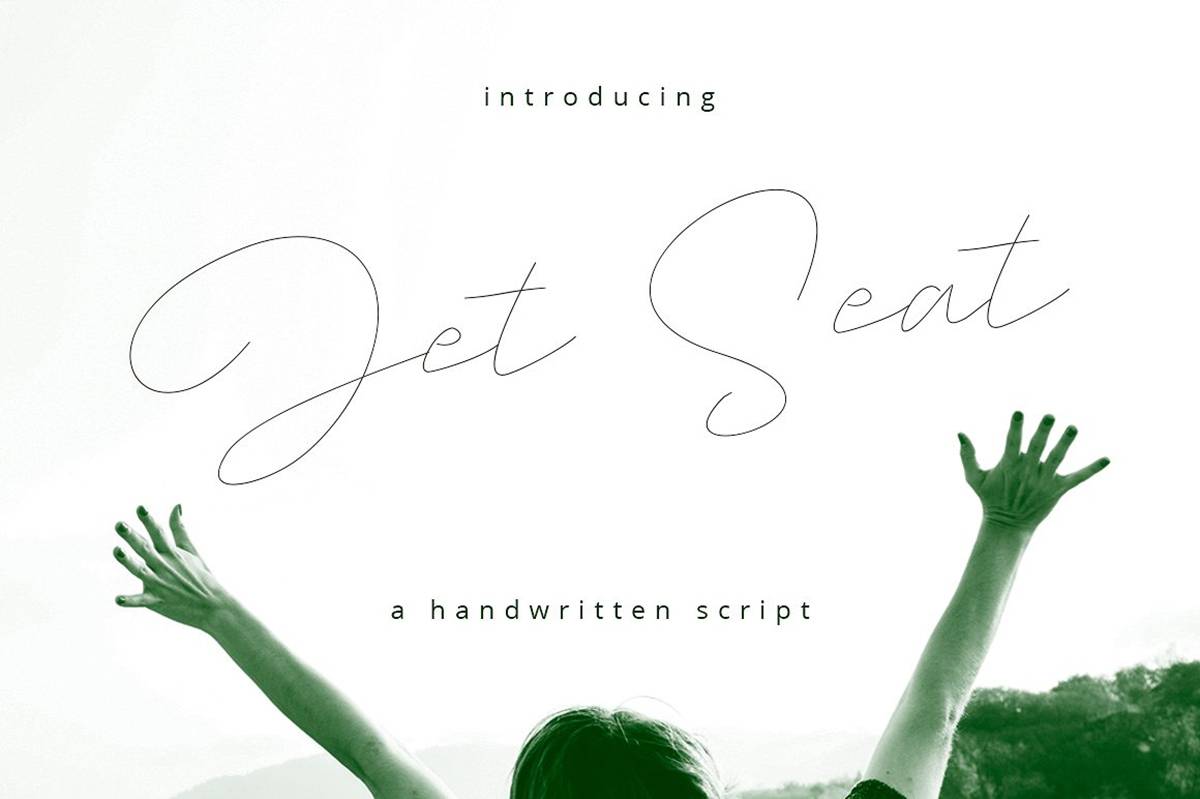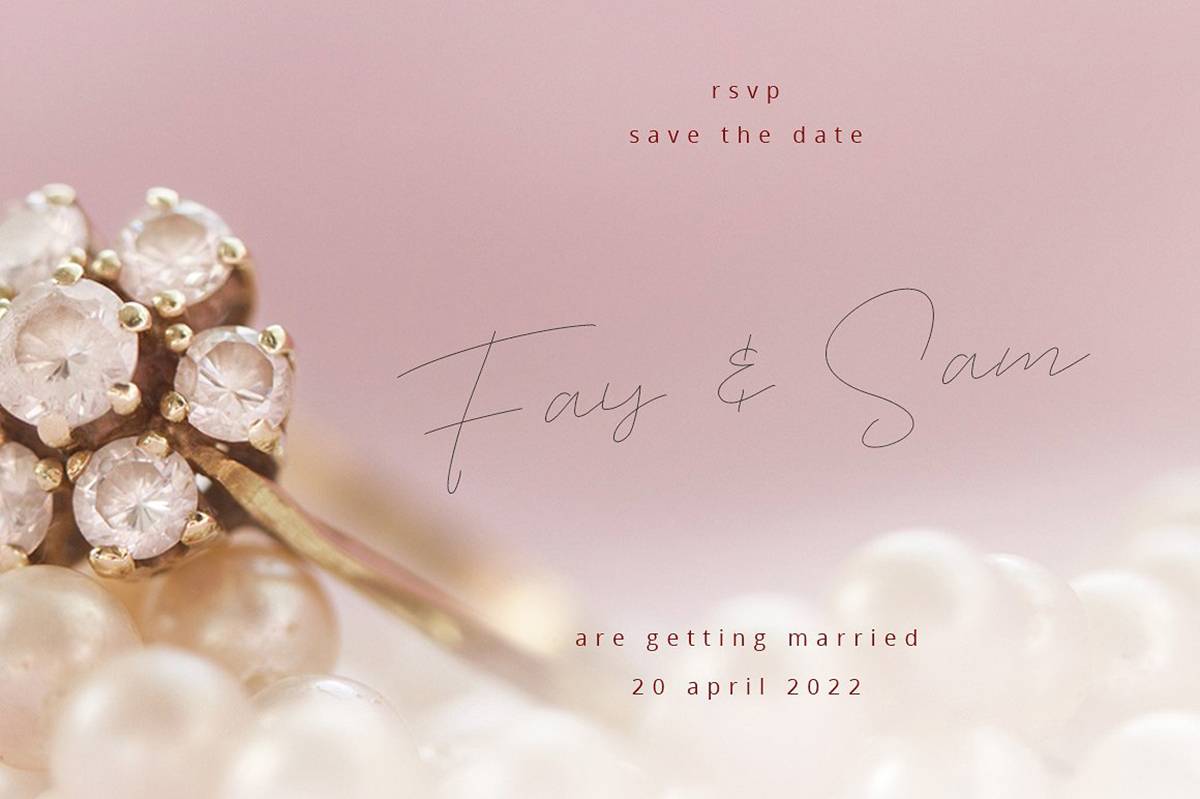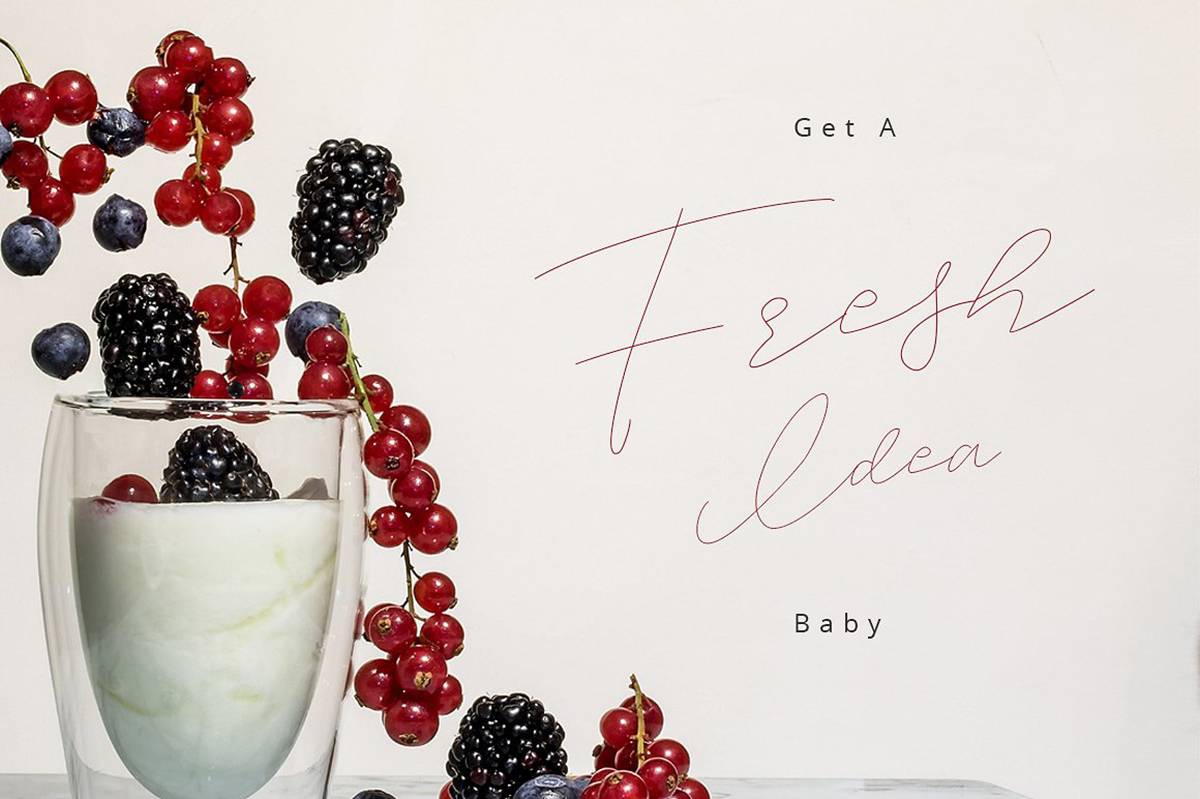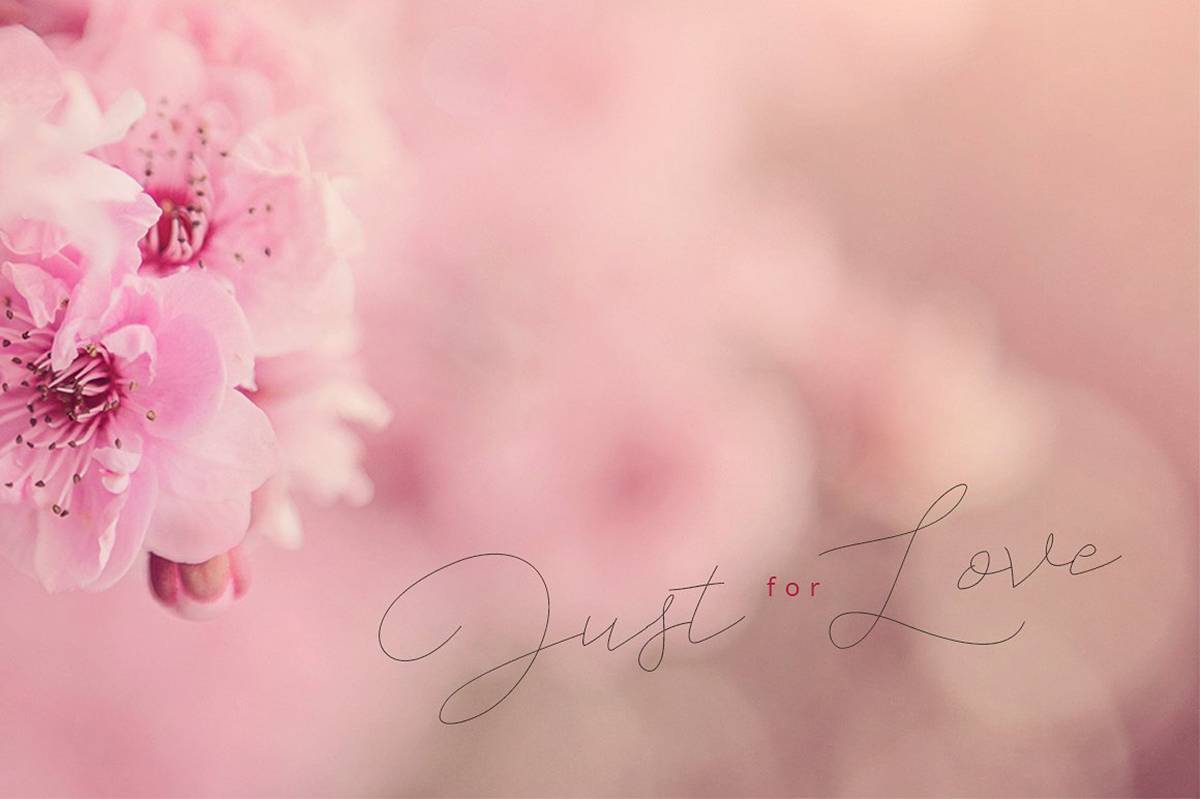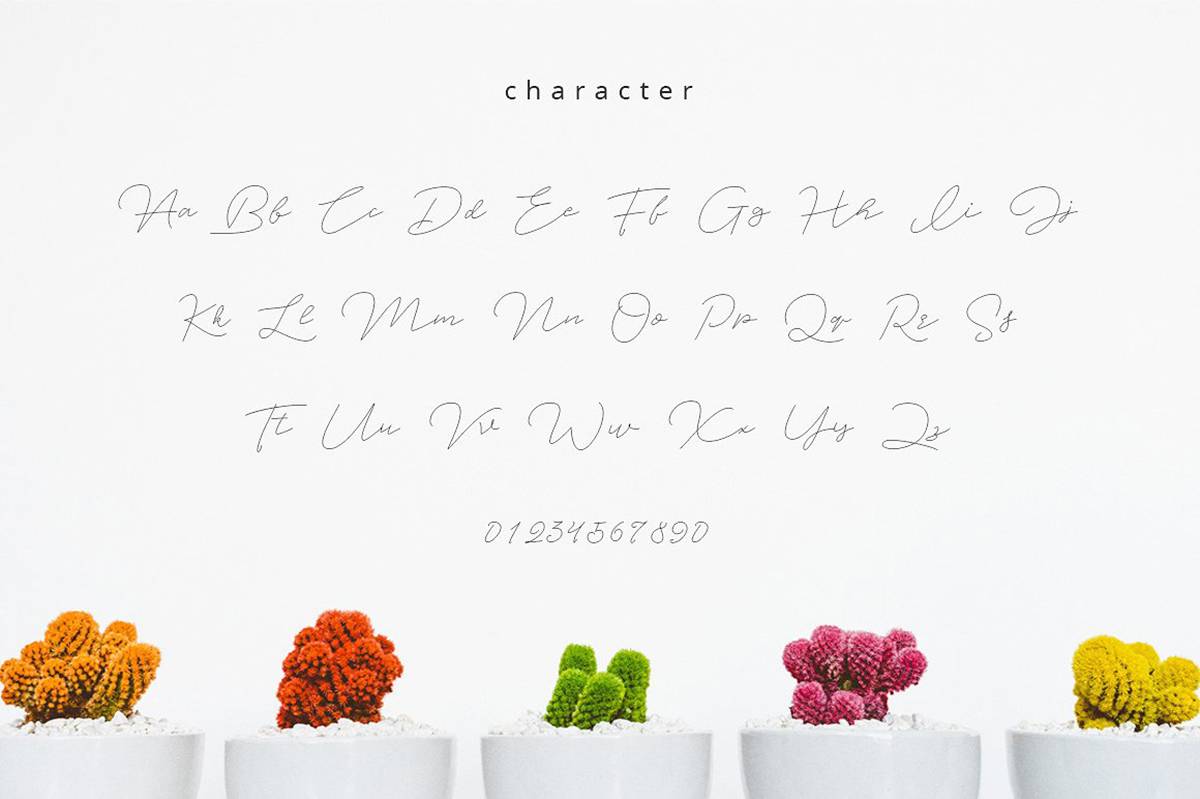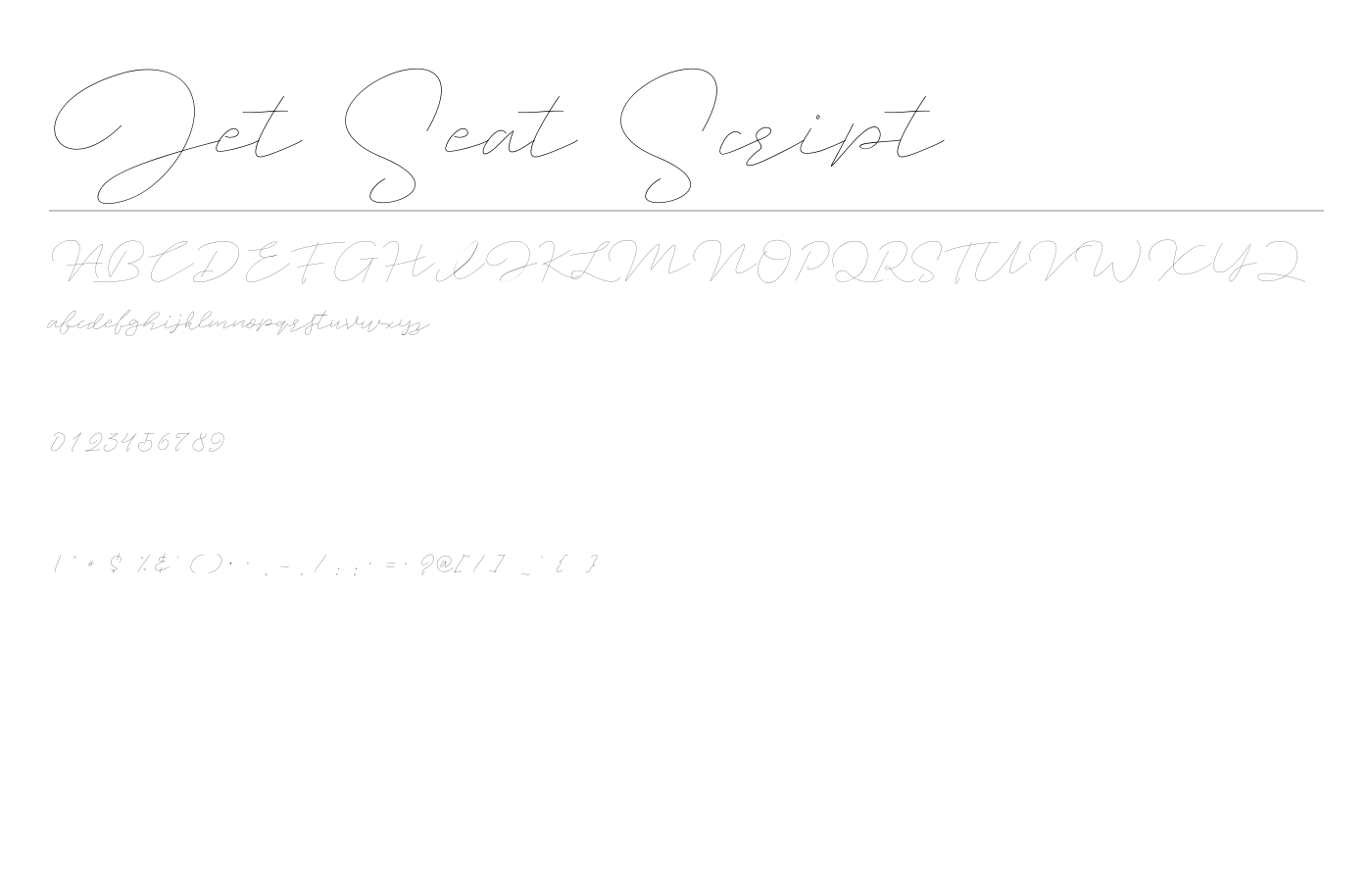
Jet Seat is an elegant, ultra-lightweight script font with delicate, flowing strokes that evoke a sense of sophistication and grace. Its fine lines and handwritten style make it perfect for luxury branding, wedding invitations, and stylish editorial projects where a subtle, refined touch is desired. Ideal for headlines and decorative uses, Jet Seat adds an airy, personal feel that communicates elegance and charm.
Jet Seat Font
About Jet Seat Font
| Font family | Jet Seat Font |
| Designer | Teuku Bahraini |